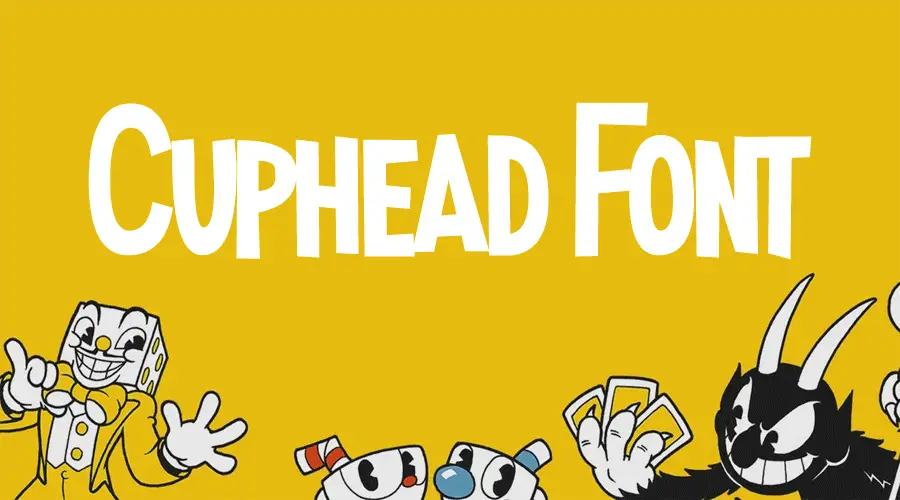
Quick answer: Community and fan sources describe the Cuphead title as drawn lettering, not a font, so it is not confirmed to be typeset. The closest free match people use is Alegreya Sans SC Bold. Free matches on this page: Fredoka and Luckiest Guy.
About the Cuphead font
Cuphead is a 2017 run-and-gun game by Studio MDHR. It was released for Windows and Xbox One on 29 September 2017 (Wikipedia).
A Steam community thread says the title screen word is a drawn logo, not a font (Steam). Font sites say the closest free match is Alegreya Sans SC Bold (Fontmeme).
History of the Cuphead lettering
- 29 September 2017: Cuphead is released for Windows and Xbox One (Wikipedia).
- 19 October 2018: the game is released for macOS (Wikipedia).
Where the Cuphead font is used
- The game’s title screen (a Steam community thread).
- Fan posters and merchandise in the game’s 1930s cartoon style, with free matches (fan use).
Fonts similar to Cuphead
Alegreya Sans SC Bold is the closest free match people use. It has a preview and a download in the tester below. These fonts also have a bold or retro feel close to the Cuphead look.
- Alegreya Sans SC Bold: the closest free match people use for the Cuphead title, in the tester below.
- Bangers Font: a comic-book style display face with bold, condensed letters.
- Oswald Font: a condensed sans serif that works for headlines and body text.
- Fredoka One Font: a rounded, friendly display face.
- Bebas Neue Font: a bold, all-caps face for titles.
What font is Cuphead?
Community sources describe the title as drawn lettering. The closest free match people use is Alegreya Sans SC Bold.
Is the Cuphead logo a font?
Community sources say it is drawn art, not a typeface. We did not find a primary source that says otherwise.